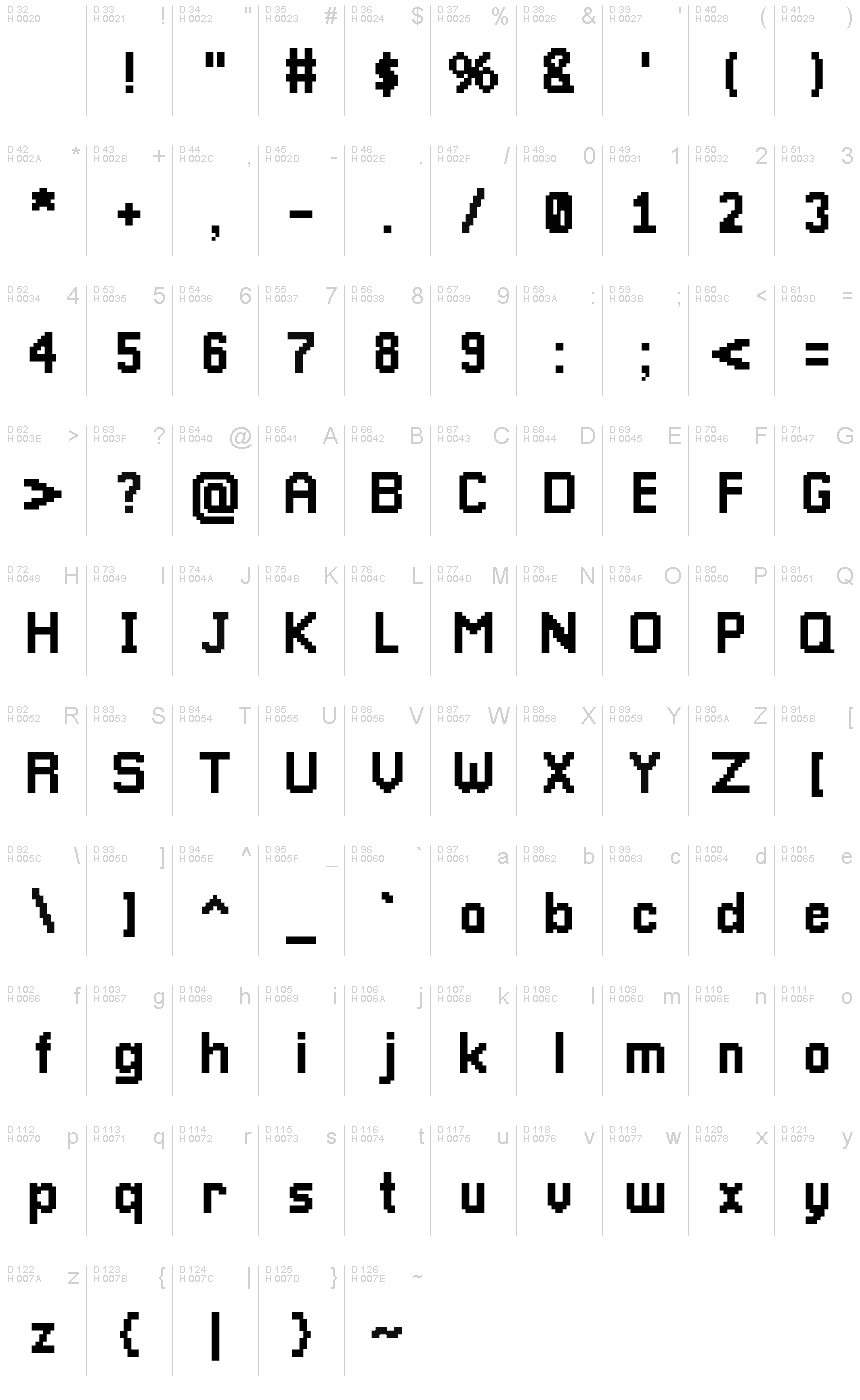
Pixellari
Pixellari is a captivating bitmap font that exudes a retro-inspired, pixelated charm. Crafted by designer Zacchary Dempsey-Plante, this condensed typeface boasts a striking visual style that instantly commands attention. The sharp, angular letterforms and distinct pixelated aesthetic evoke a nostalgic, 8-bit ambiance, making Pixellari an ideal choice for a wide range of design applications, from vintage-inspired branding to eye-catching digital interfaces.
With its unique character and versatile nature, Pixellari is a font that effortlessly bridges the gap between the past and the present, offering designers a dynamic tool to create visually compelling and memorable typographic experiences.